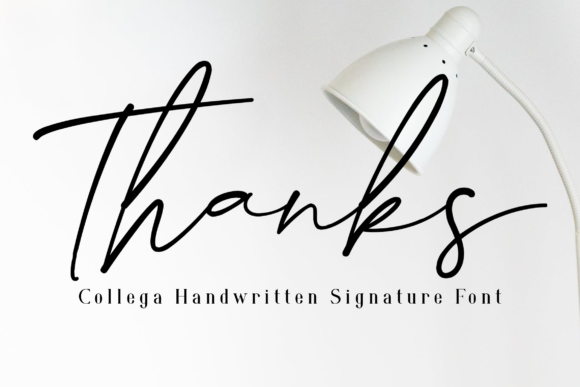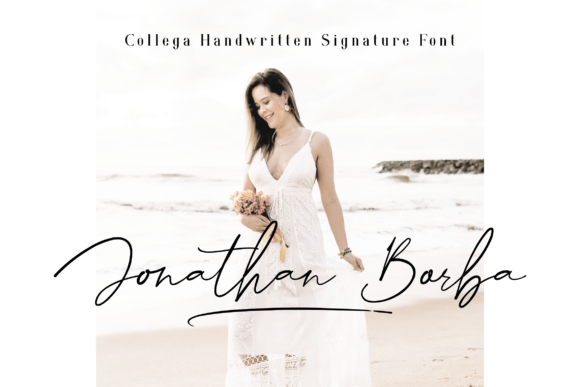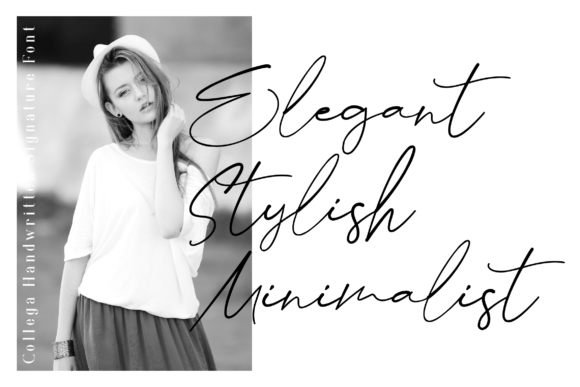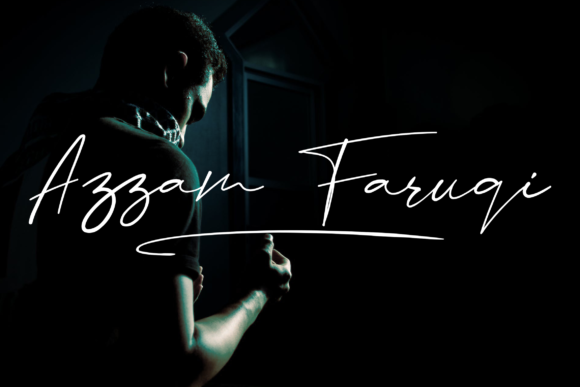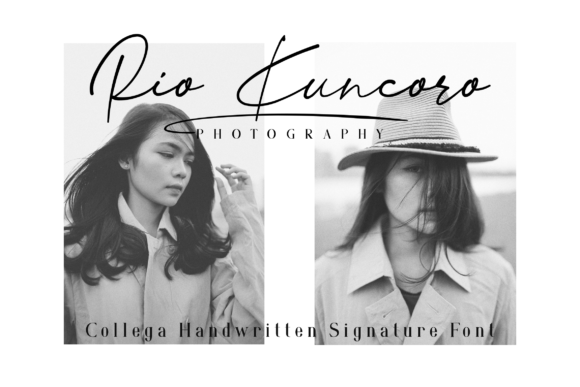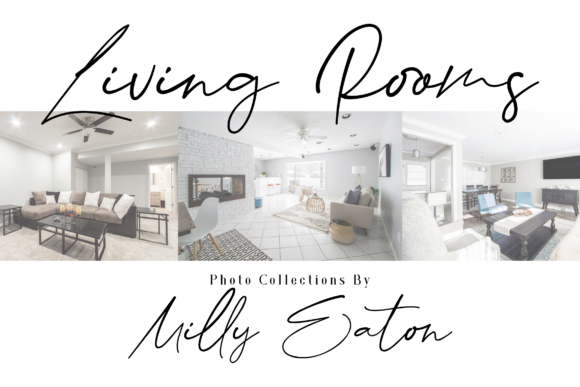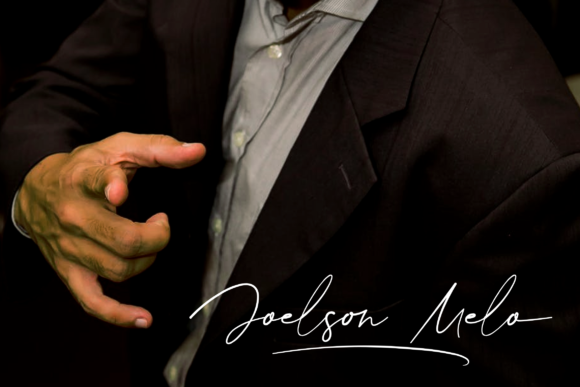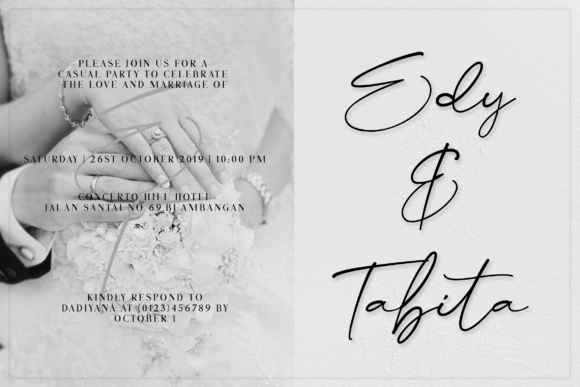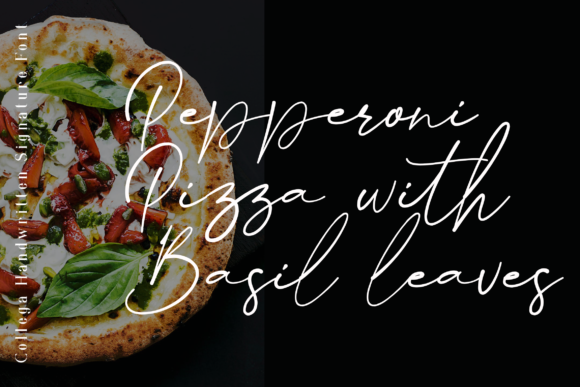
Script Fonts Collega Font 0 149 FacebookTwitterPinterestWhatsApp Collega Font Poster 2 Collega Font Poster 3 Collega Font Poster 4 Collega Font Poster 5 Collega Font Poster 6 Collega Font Poster 7 Collega Font Poster 8 Collega Font Poster 9 Collega Font Poster 10 About Collega Font Collega is a cool and bold script with a unique style. Get inspired by its bold feel. DOWNLOAD NOW